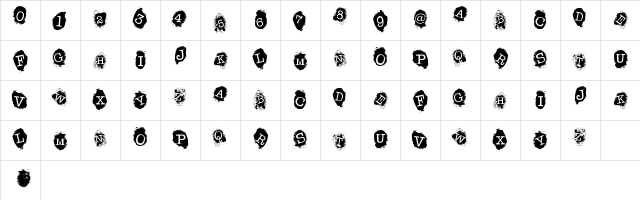
Fingerprints Inside Regular Free Font
Fingerprints Inside Regular
Design Context for Fingerprints Inside
Fingerprints Inside is a composed and adaptable typeface that performs quietly and consistently across a wide range of design contexts.